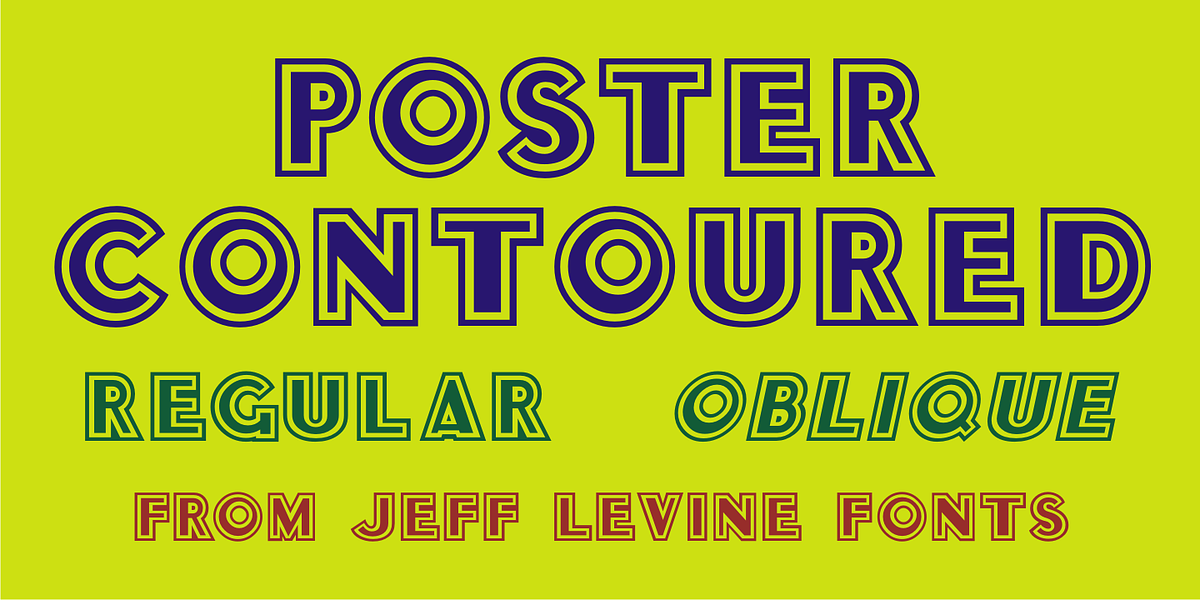
Poster Contoured JNL
Sheet music for a selection from the 1928 musical “New Moon” had the show’s title hand lettered in a bold sans serif that reflected the upcoming Art Deco movement, along with a contoured outline around the letters.
This served as the model for Poster Contoured JNL, which is available in both regular and oblique versions.